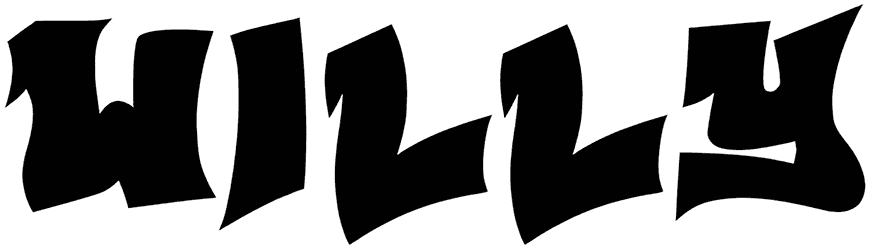
Willy Font
If you want an artistic style that has an urban feel, don’t pass this item up without seeing it. Willy is a graffiti font with bulky and smooth hand-drawn letters and reflects a cool and exciting vibe. With an almost full cover of characters, you are able to set the Willy font for numerous layouts such as posters, banners, tattoos, apparel, and whatnot.